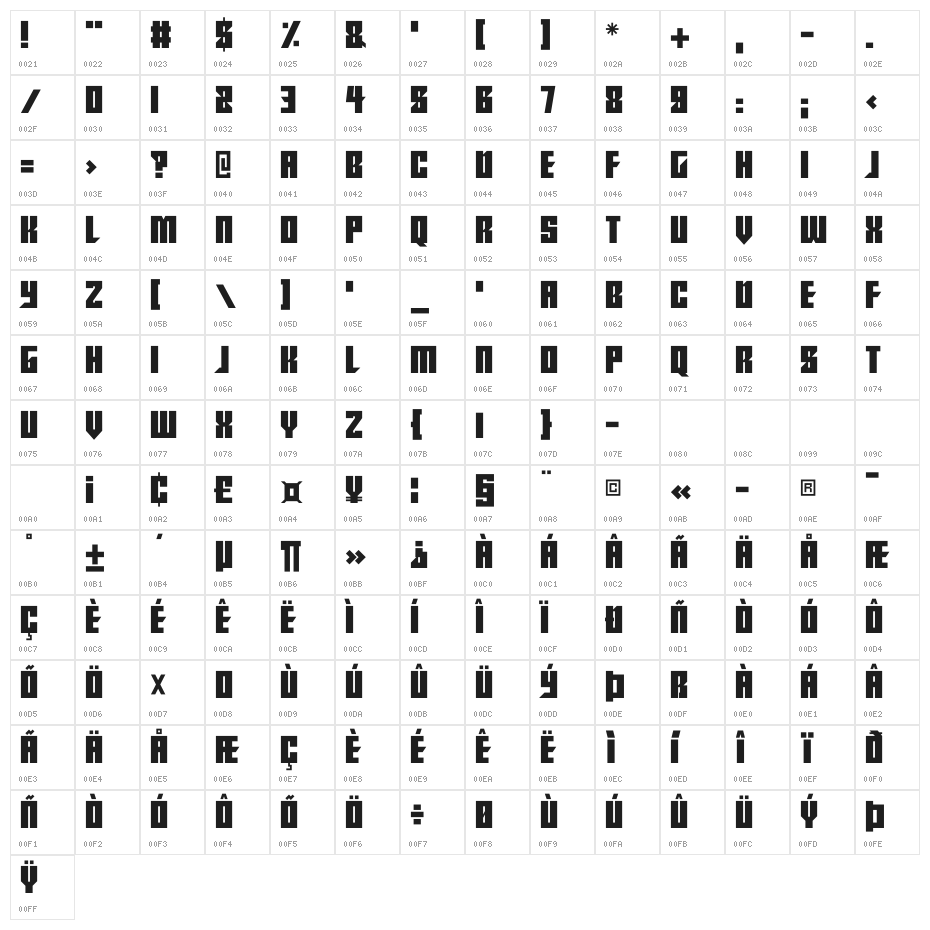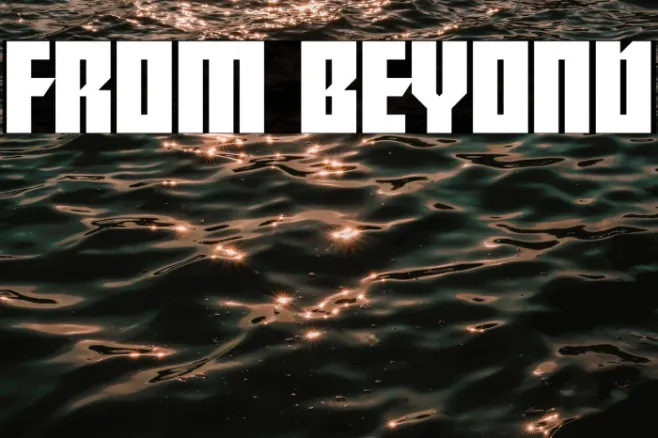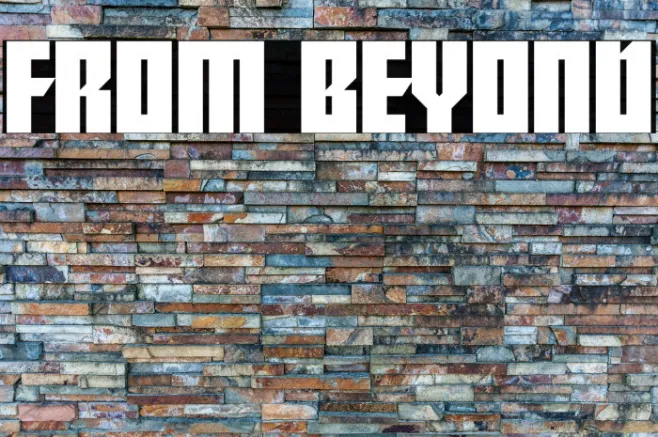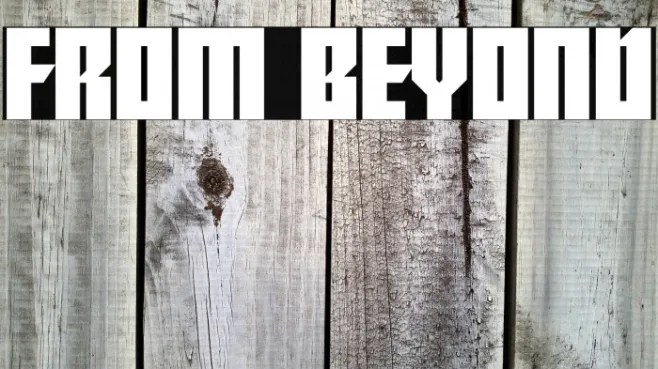
From Beyond Font
From Beyond Description
This font features a bold and striking design with sharp, angular edges and a geometric structure. The uppercase letters are particularly prominent, with a blocky appearance that commands attention. The characters are tightly spaced, enhancing the compact and powerful look. The numbers and special characters maintain the same boldness and angular style, ensuring consistency across all elements. This font's high contrast in stroke thickness adds to its dramatic and impactful presence, making it ideal for projects that require a strong visual statement.